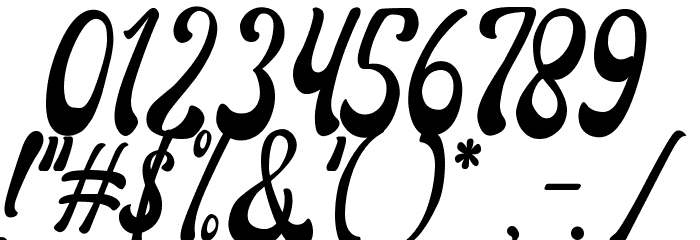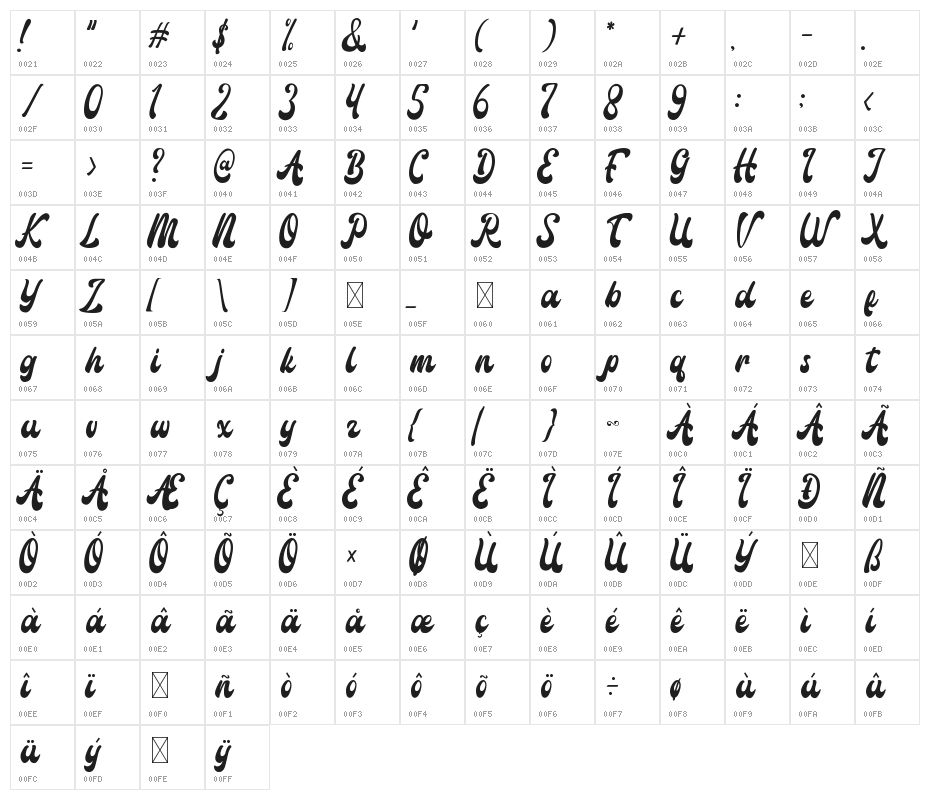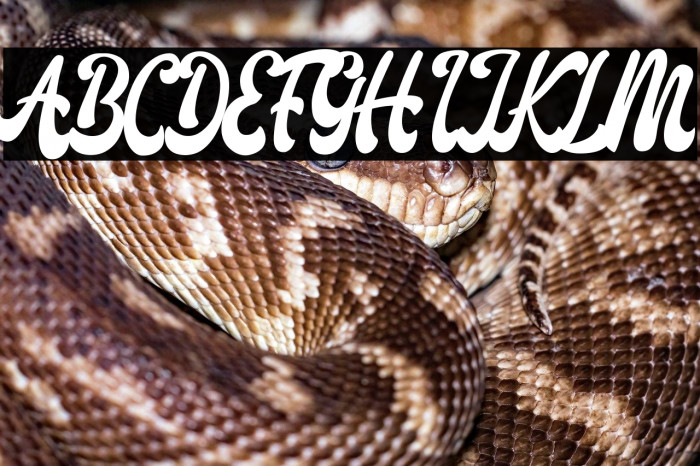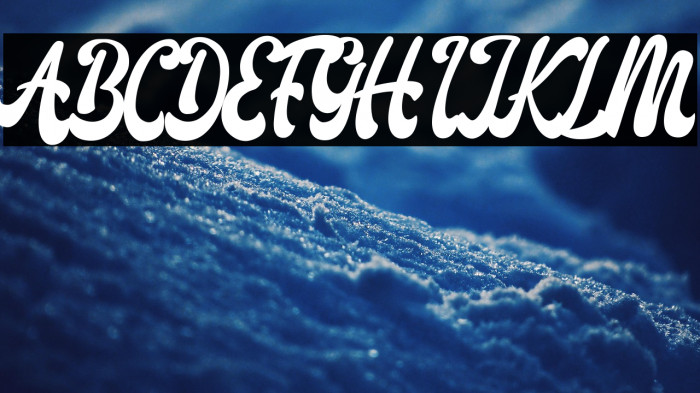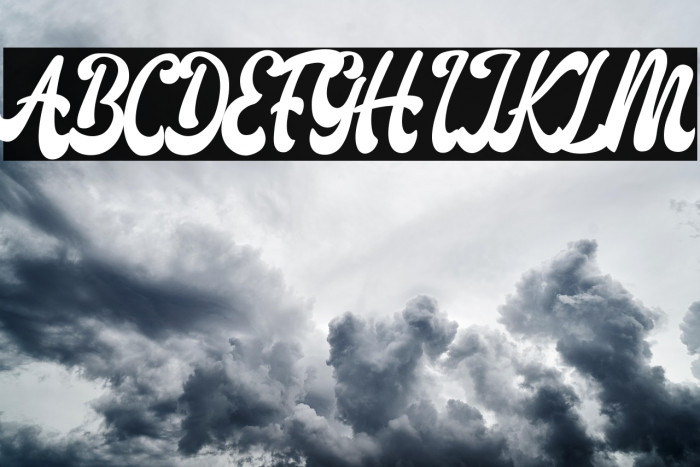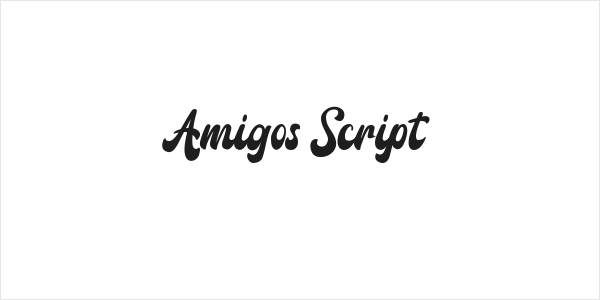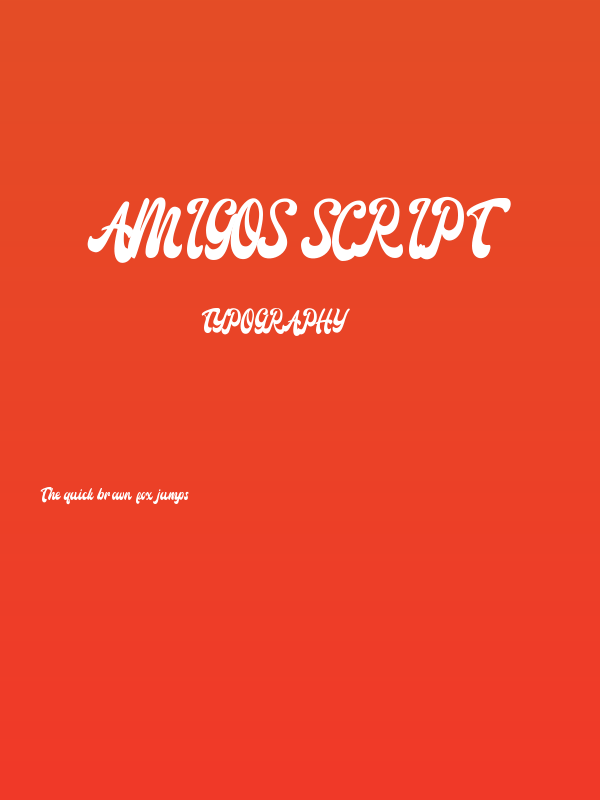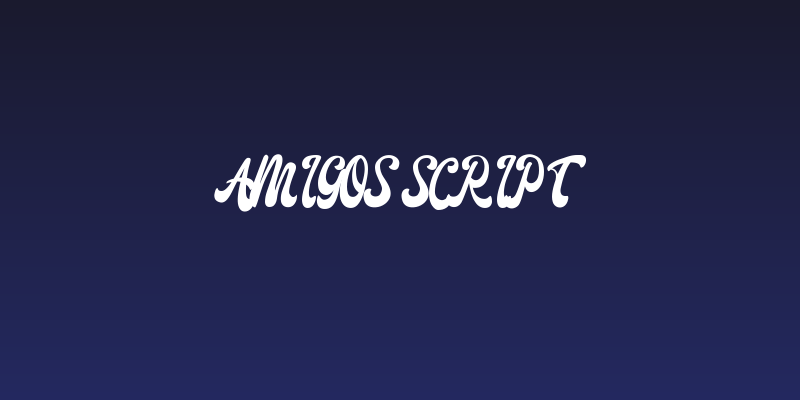
Amigos Script Font
Amigos Script Description
This font features a bold and flowing script style, characterized by its smooth, cursive strokes and elegant curves. The uppercase letters are prominently designed with a sense of movement, while the lowercase letters maintain a consistent flow, enhancing readability. The numbers and special characters are crafted to match the overall aesthetic, providing a cohesive look. The font's design is both expressive and dynamic, making it suitable for creative and decorative purposes. Its bold appearance ensures that it stands out, while the script style adds a touch of sophistication and flair.